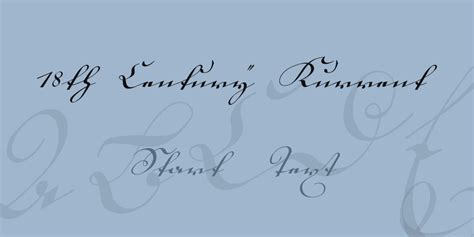
Unlock the Mystery: Discover the Top 10 Free Hard to Read Fonts for Your Next Design Project
If you're a designer, you know that choosing the right font can make or break your project. But sometimes, the standard fonts just won't cut it - you need something more unique and eye-catching. That's where hard to read fonts come in.
But wait, why would you want a font that's hard to read? For one, it can add a certain quirkiness or edginess to your design. It can also help you stand out from the crowd - after all, everyone else is probably using Arial or Times New Roman.
So, where do you find these hard to read fonts? And how do you know which ones are actually worth using? Look no further - we've done the research for you, and compiled a list of the top 10 free hard to read fonts for your next design project.
But before we dive into the list, let's talk about why free fonts are important. Sure, you could pay for a fancy font, but why spend money when there are so many amazing free fonts out there? Plus, free fonts allow you to experiment and play around with different styles without breaking the bank.
Now, without further ado, let's reveal our top 10 hard to read fonts. From the psychedelic Hippie Movement to the spooky Bleeding Cowboys, these fonts are sure to add some personality to your designs. So, are you ready to unlock the mystery of hard to read fonts? Let's get started!
By the end of this article, not only will you have a new arsenal of unique fonts at your disposal, but you'll also have a better understanding of how to choose fonts that complement your design style. So, what are you waiting for? Scroll down and discover the world of hard to read fonts.
Unlock the Mystery: Discover the Top 10 Free Hard to Read Fonts for Your Next Design Project
In the world of design, choosing the right font style can make all the difference. Depending on the project, you may want a font that is elegant, serious, playful or even hard to read. This article will explore some of the best free hard to read fonts available and compare them so that you can choose the perfect one for your next project.
What Makes a Font Hard to Read?
A hard to read font is one that puts emphasis on creativity and originality over legibility. These fonts can be difficult or even impossible to read, which makes them ideal when you want to create a unique look on your designs that's not easily forgotten.
Top 10 Free Hard to Read Fonts
| Font Name | Category | Pros | Cons |
|---|---|---|---|
| Lobster Two | Serif | Elegant and stylish | Can be difficult to read in small sizes |
| Florence | Serif | Great for headings and titles | Not suitable for long paragraphs |
| Blackout | Sans-serif | Rugged and bold | Not suitable for formal designs |
| Sneaker Script | Playful and fun | Can be difficult to read in long sentences |
| Mashed | Sans-serif | Unique and eye-catching | Not suitable for long paragraphs |
| Permanent Marker | Handwritten | Looks like it was written with a marker | May not be suitable for professional designs |
| Orbitron | Sans-serif | Robotic and futuristic | May not be suitable for certain designs |
| Pacifico | Handwritten | Makes a statement | Not suitable for long texts or paragraphs |
| Overlock | Sans-serif | Bold and modern | May not be suitable for formal designs |
| Aldine Expanded | Serif | Bold and elegant | Can be difficult to read in small sizes |
Opinion
When it comes to choosing a hard to read font, it's important to consider what message you want to convey with your design, as well as the audience that you're targeting. For example, if your design is playful and youthful, a fun handwritten font like Sneaker Script or Pacifico could be the perfect choice. However, if you want to make a more professional statement, Aldine Expanded or Blackout may be a better fit.
Overall, each of the fonts featured in this article brings something different to the table. Whether you're looking for elegance, playfulness, boldness or uniqueness, there's a font here to suit your needs. So go ahead and experiment with these fonts in your next design project - who knows what new and interesting things you might discover!
- What are hard to read fonts?
- Why use hard to read fonts?
- What are the top 10 free hard to read fonts?
- Impact
- Brush Script
- Jokerman
- Papyrus
- Curlz MT
- Bauhaus 93
When choosing a hard to read font, consider the purpose of the design project, the target audience, and the readability of the font. It is also important to consider how the font will be used within the design, such as for headings or body text.